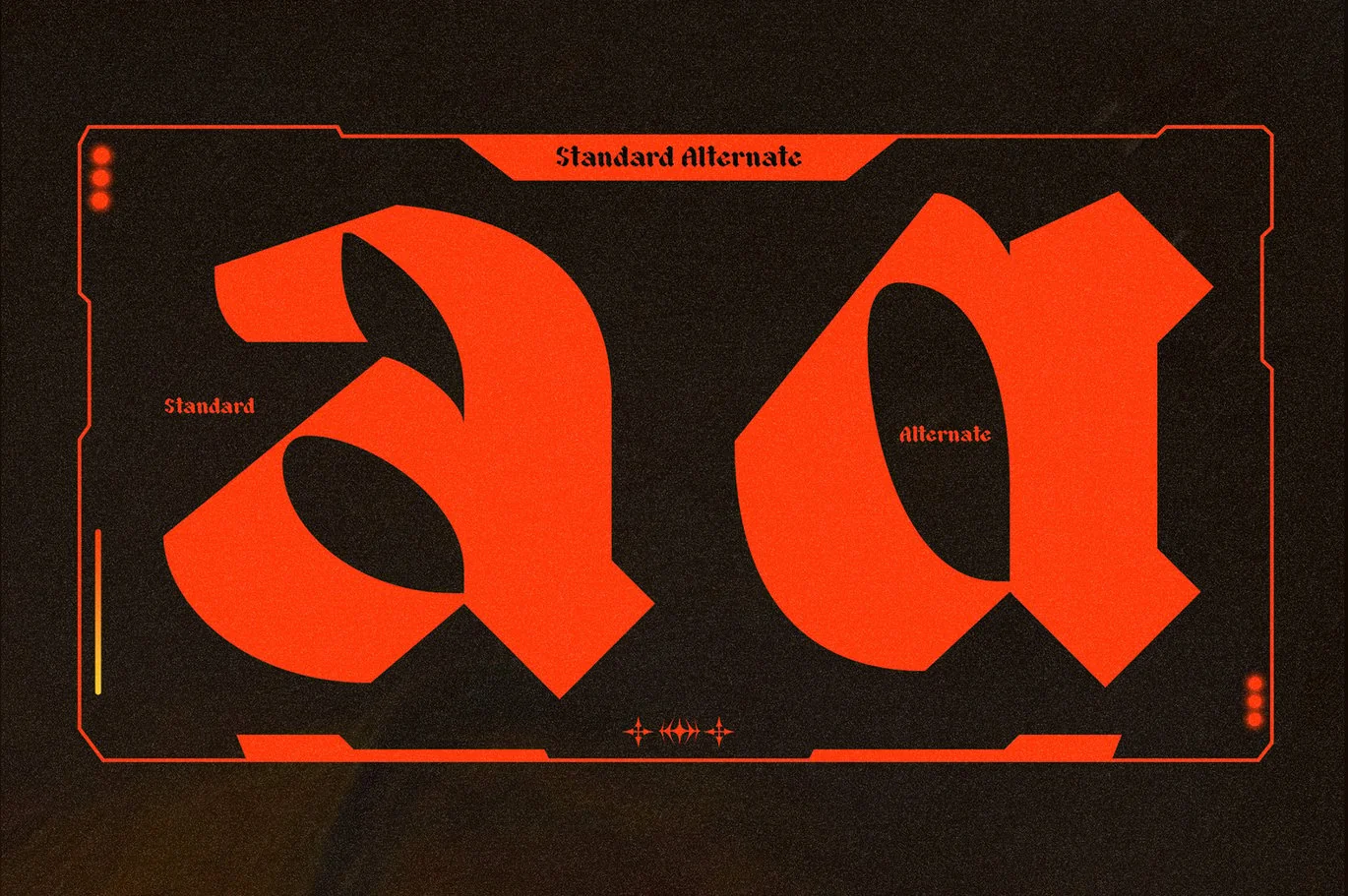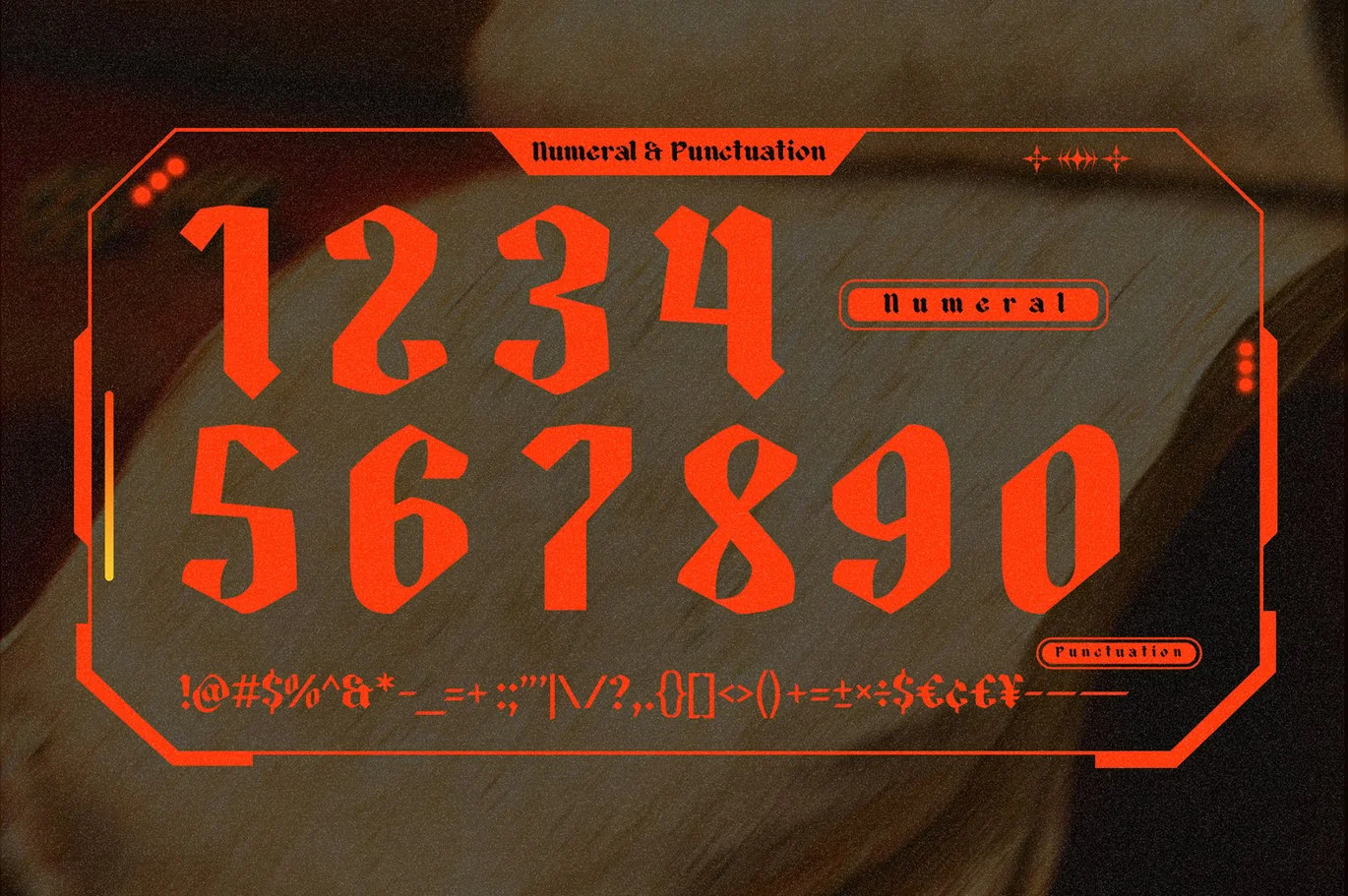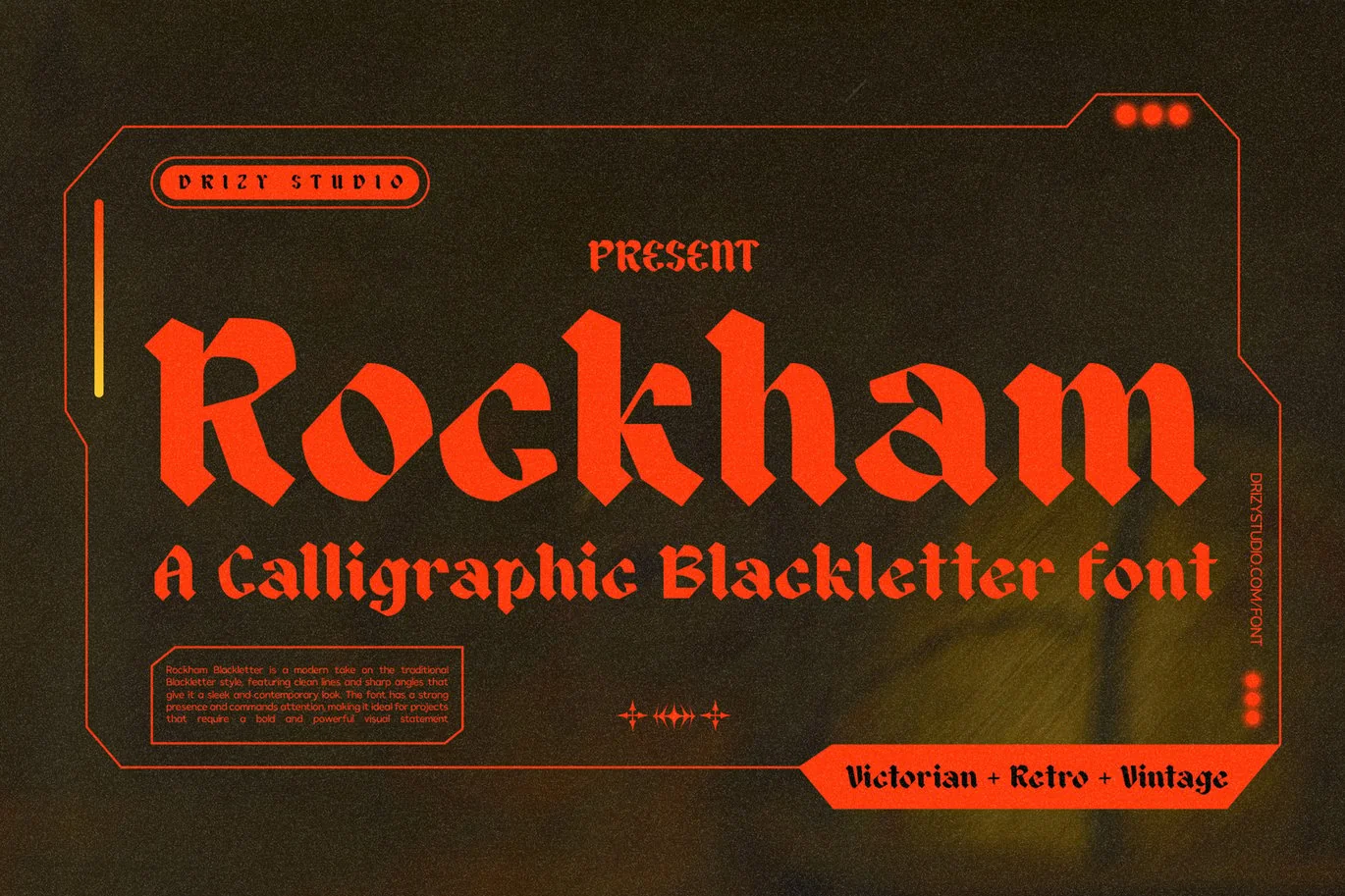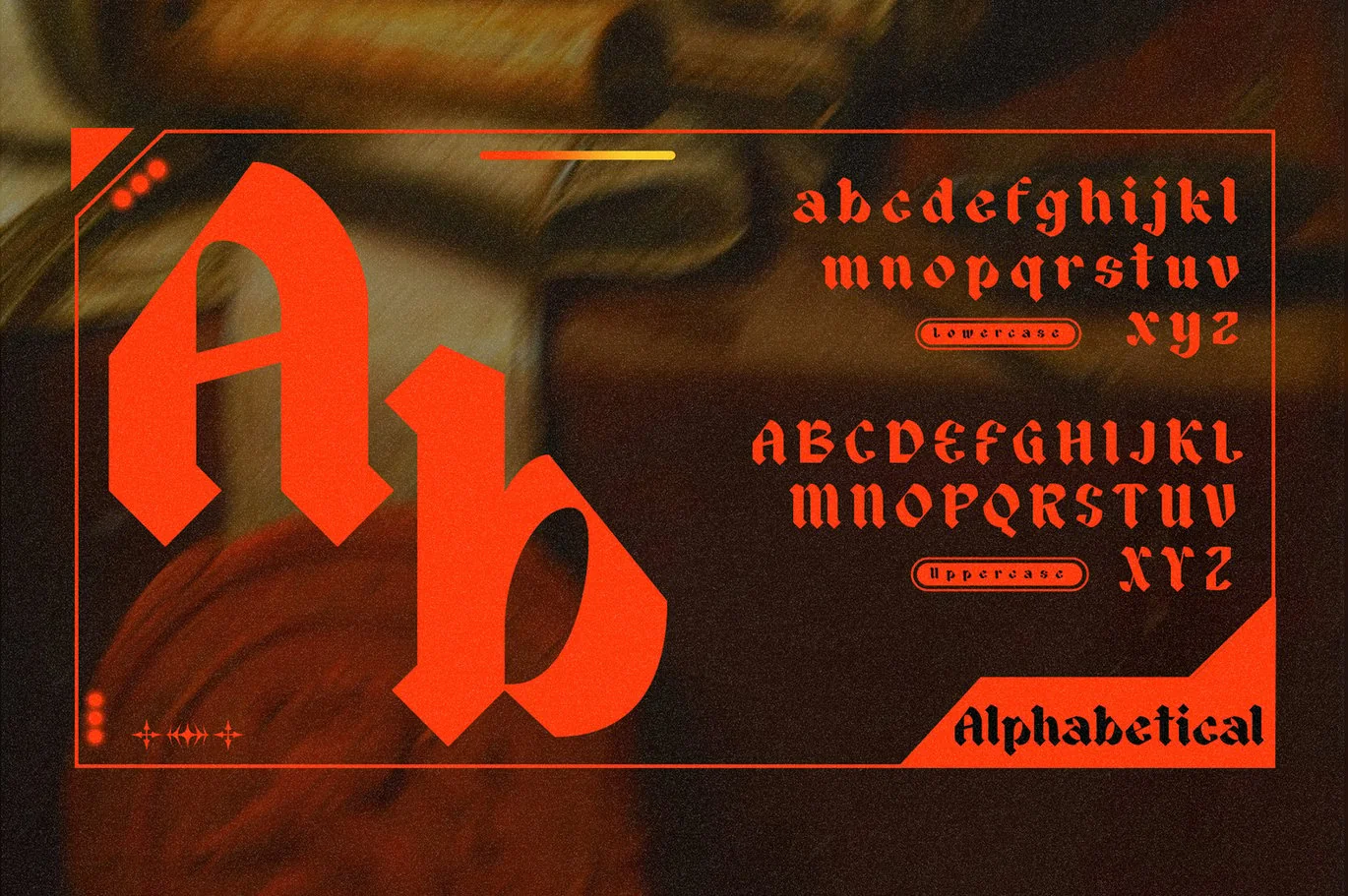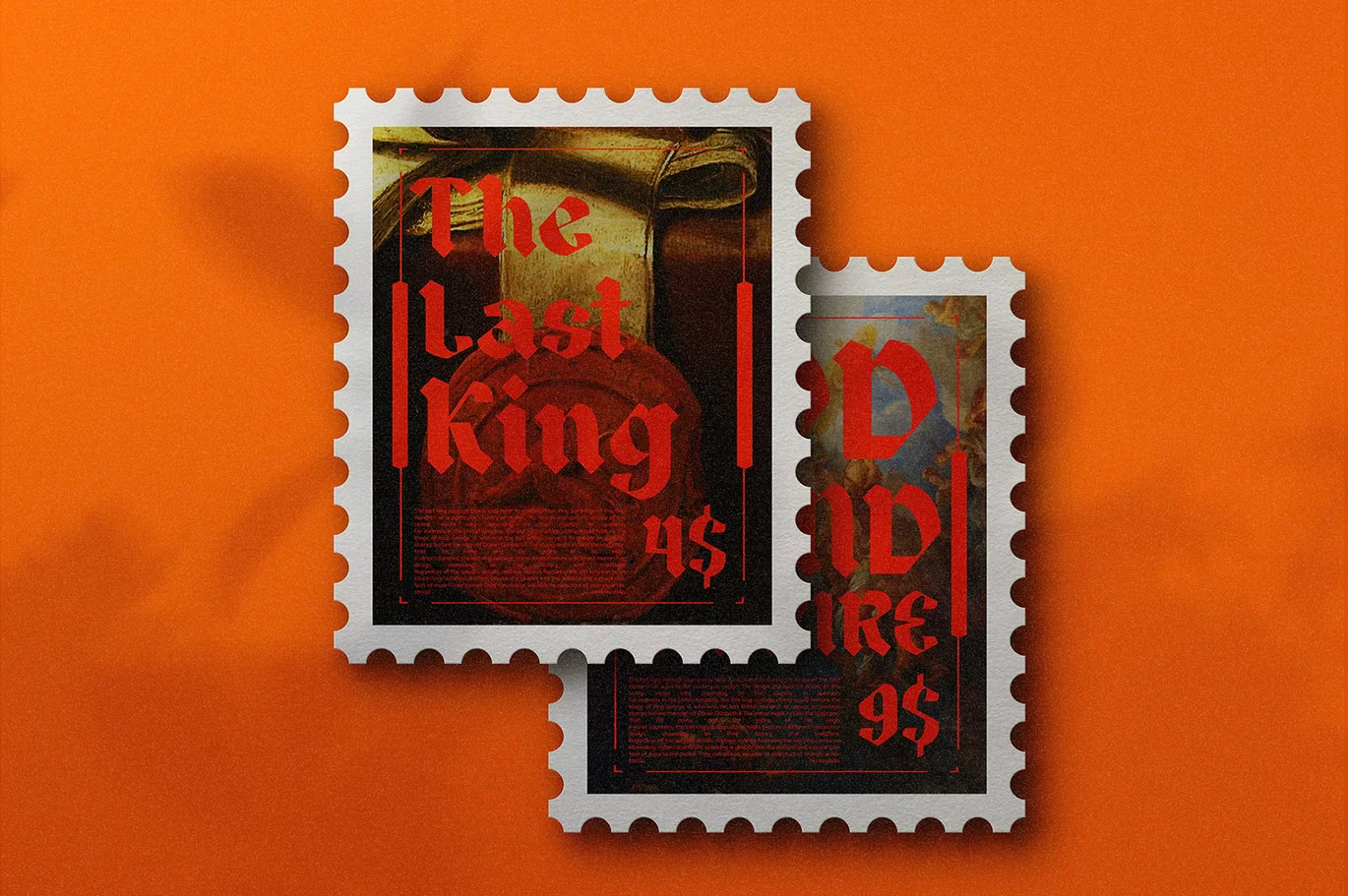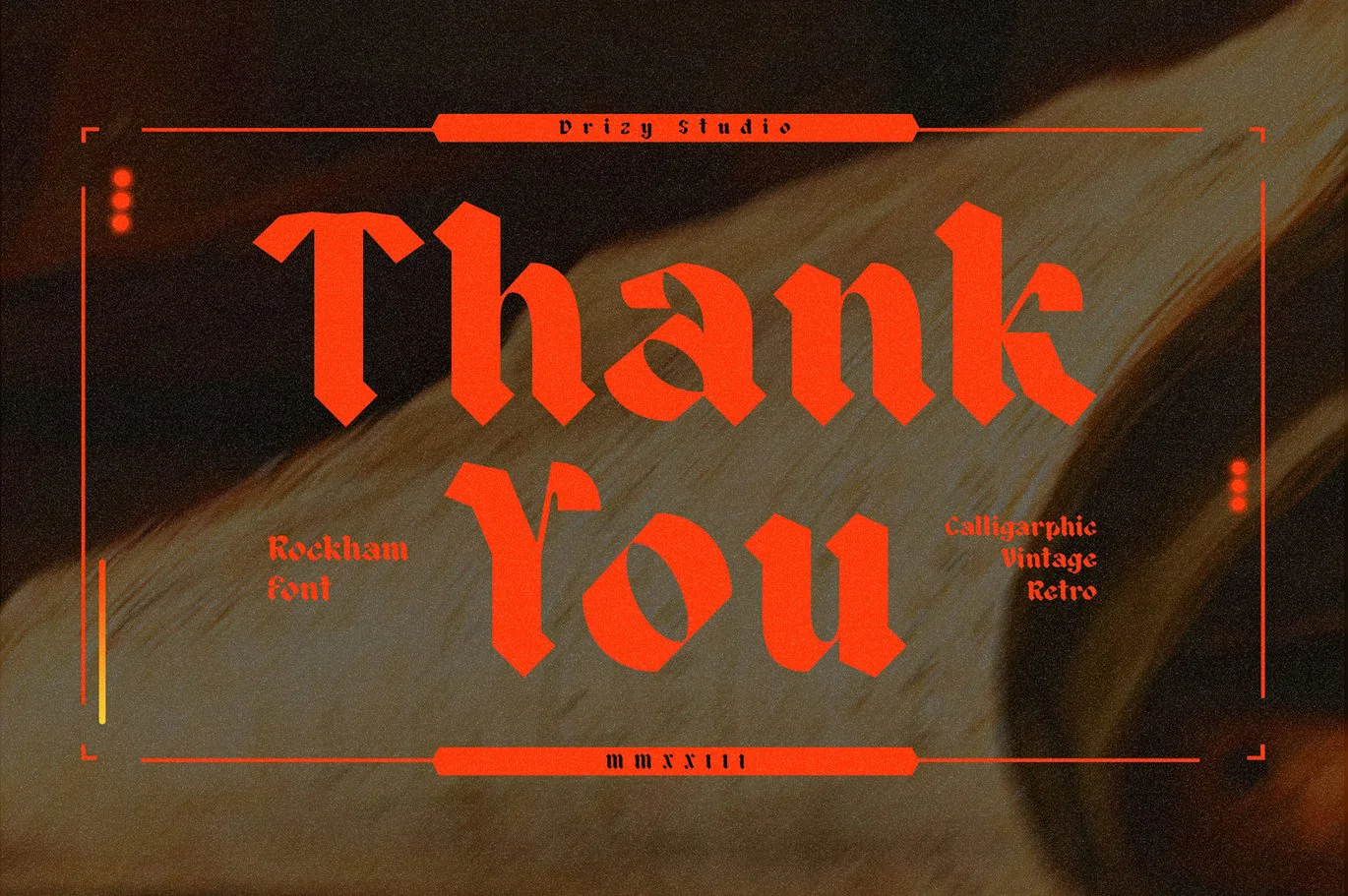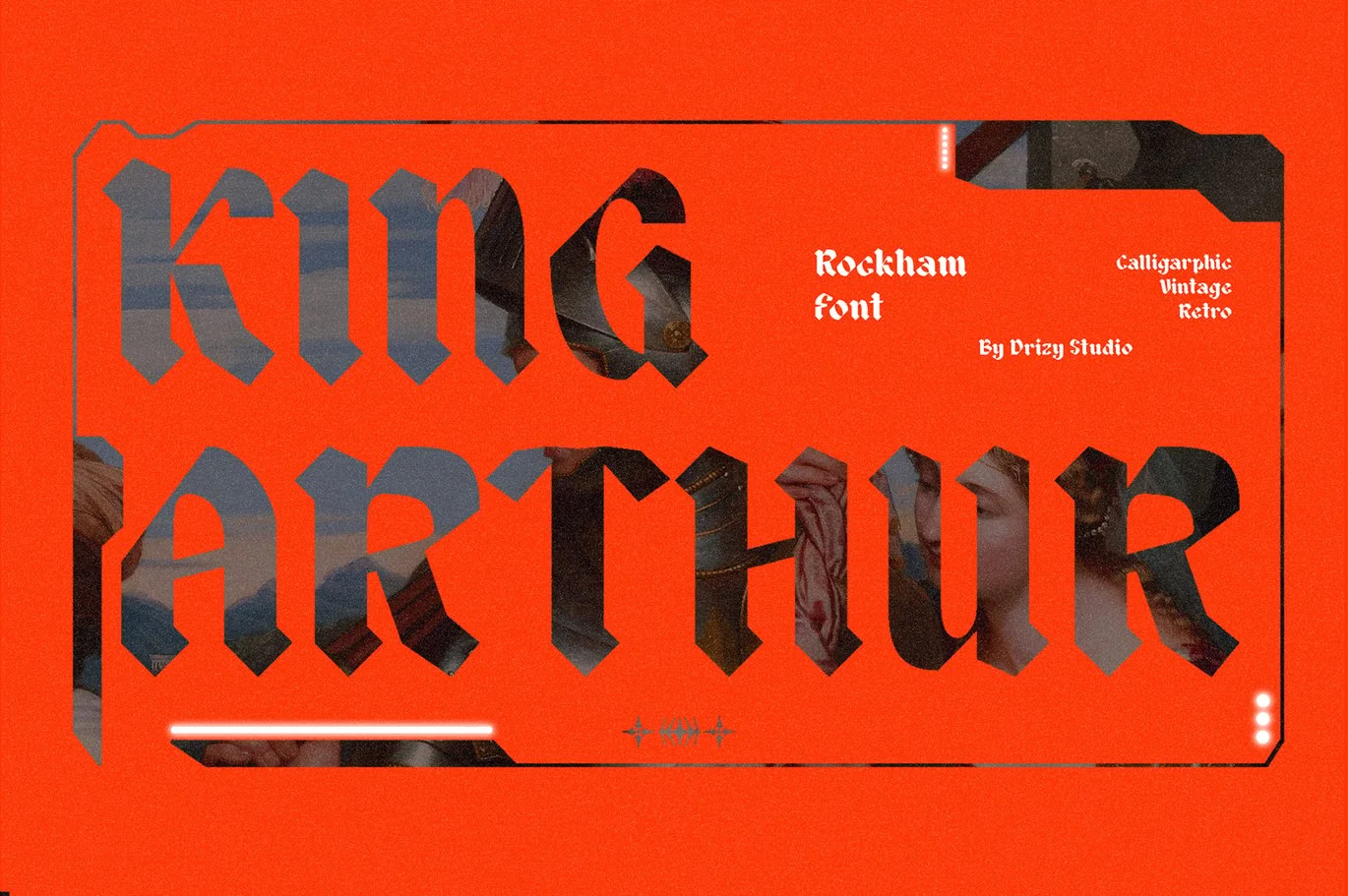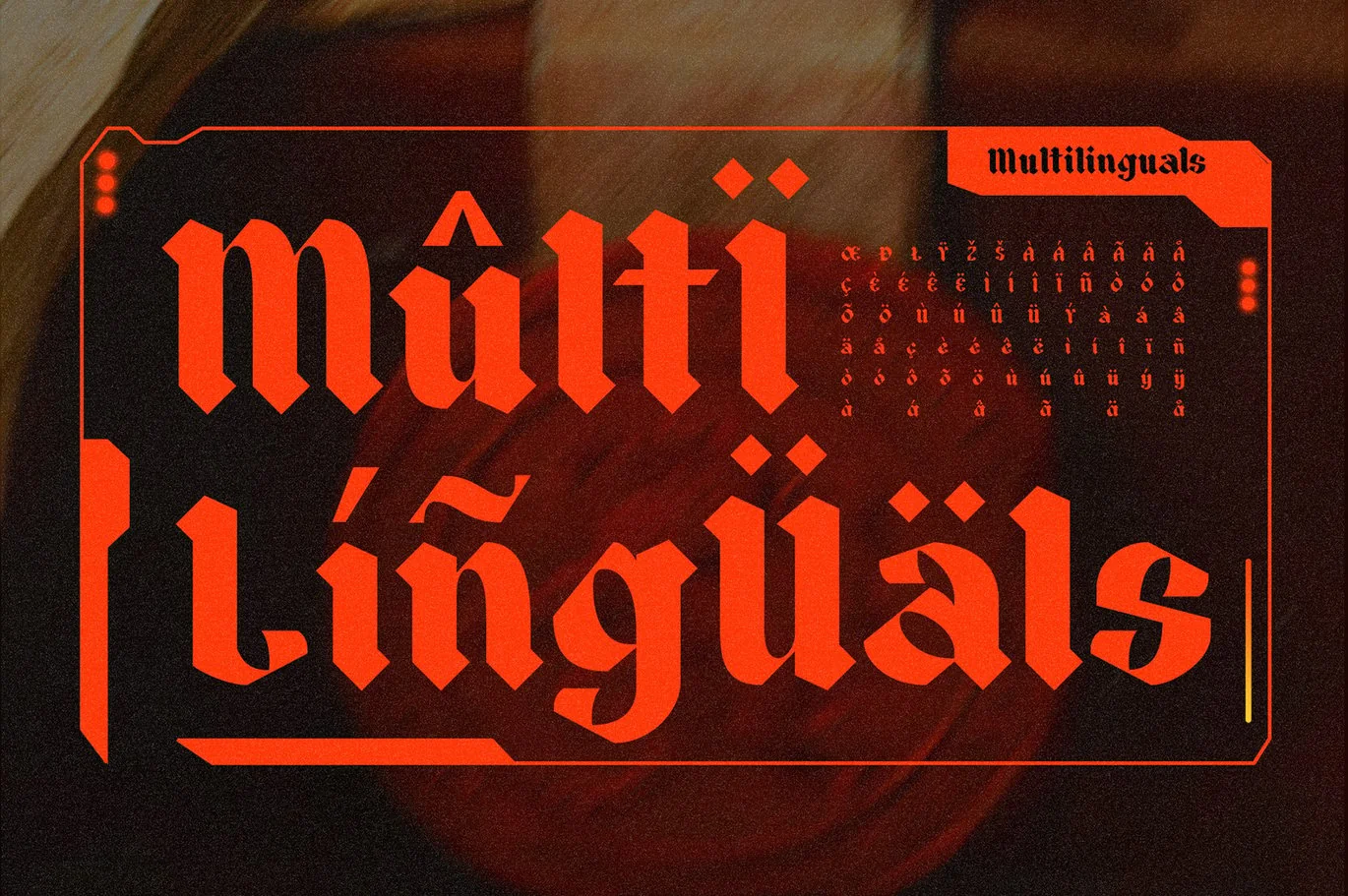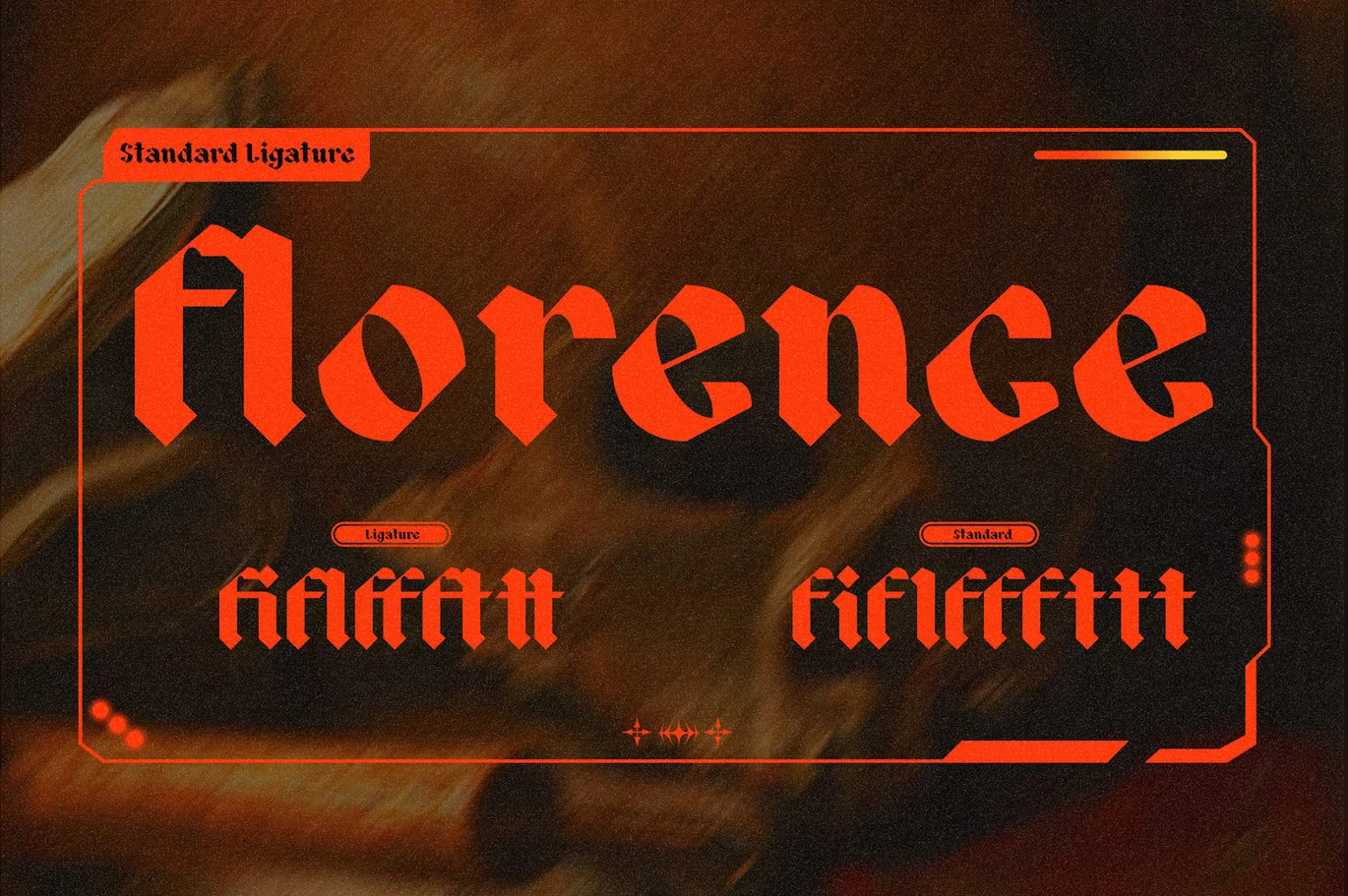
Rockham – Calligraphic Blackletter Font
Rockham is a Calligraphic Blackletter Font from Drizy Studio. Offering the unique Victorian style you need for your projects.
Rockham features:
- Uppercase and lowercase letters
- Multilinguals